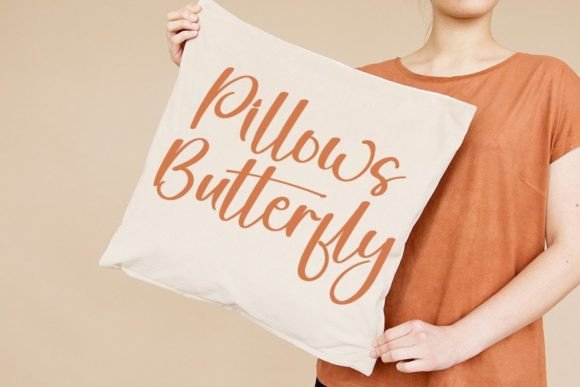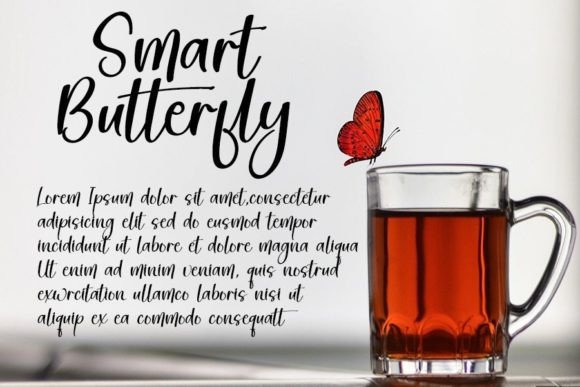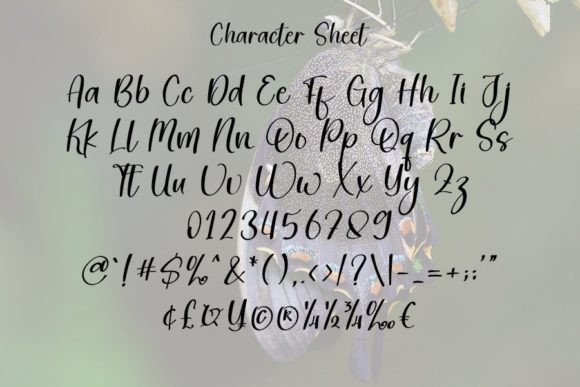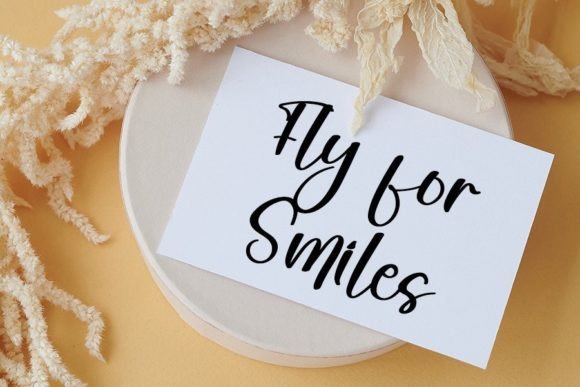
Butterfly sounds like a stylish and contemporary handwritten font, drawing inspiration from timeless classic calligraphy. The description suggests a font with impeccable form, balancing both style and variation to enhance the beauty of design projects.
The combination of contemporary atmosphere and classic calligraphy influences indicates that Butterfly could offer a versatile aesthetic, suitable for a range of design applications. Whether it’s used for branding, invitations, or any creative project, a font with these characteristics often brings a touch of sophistication and elegance.